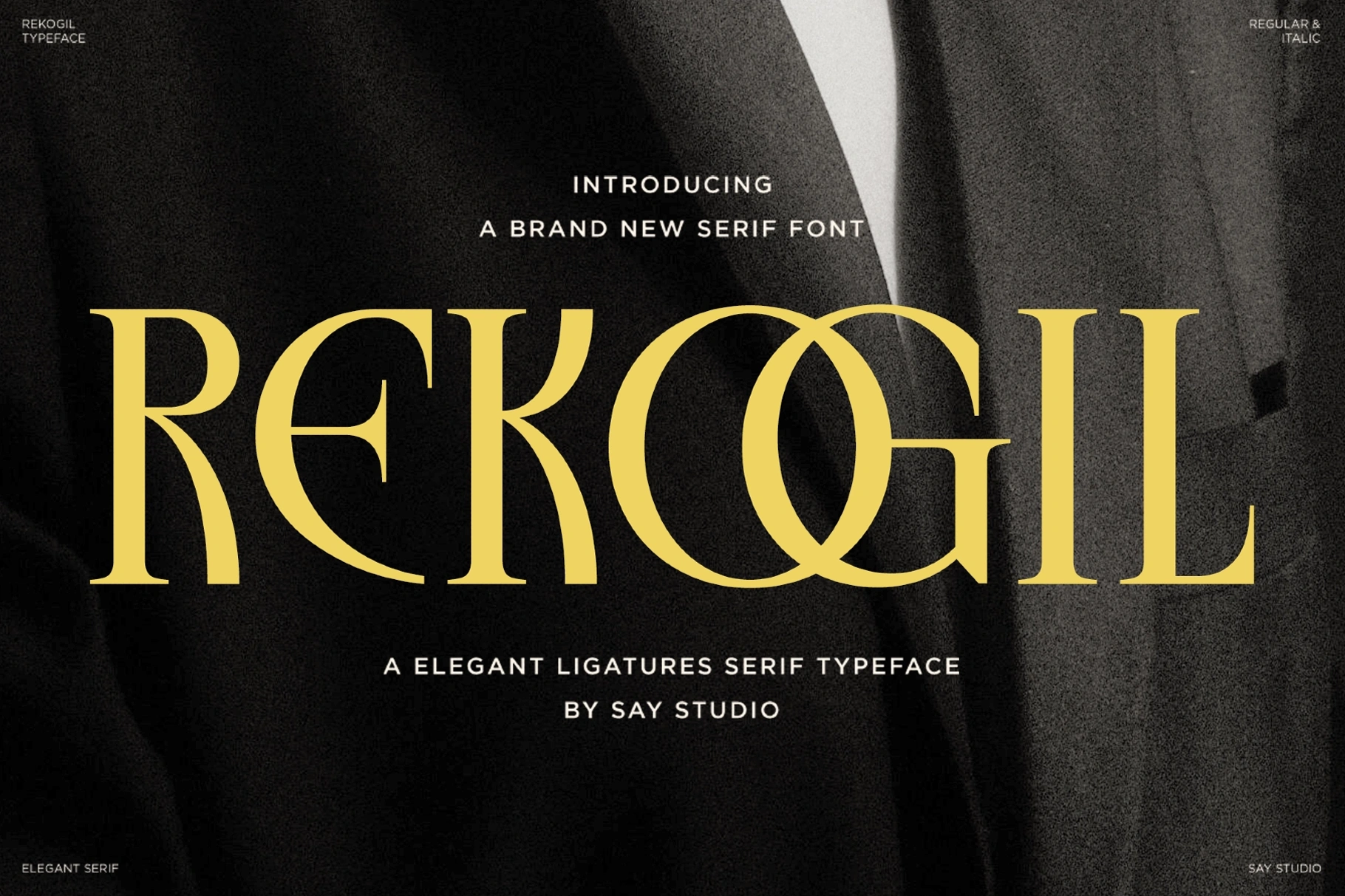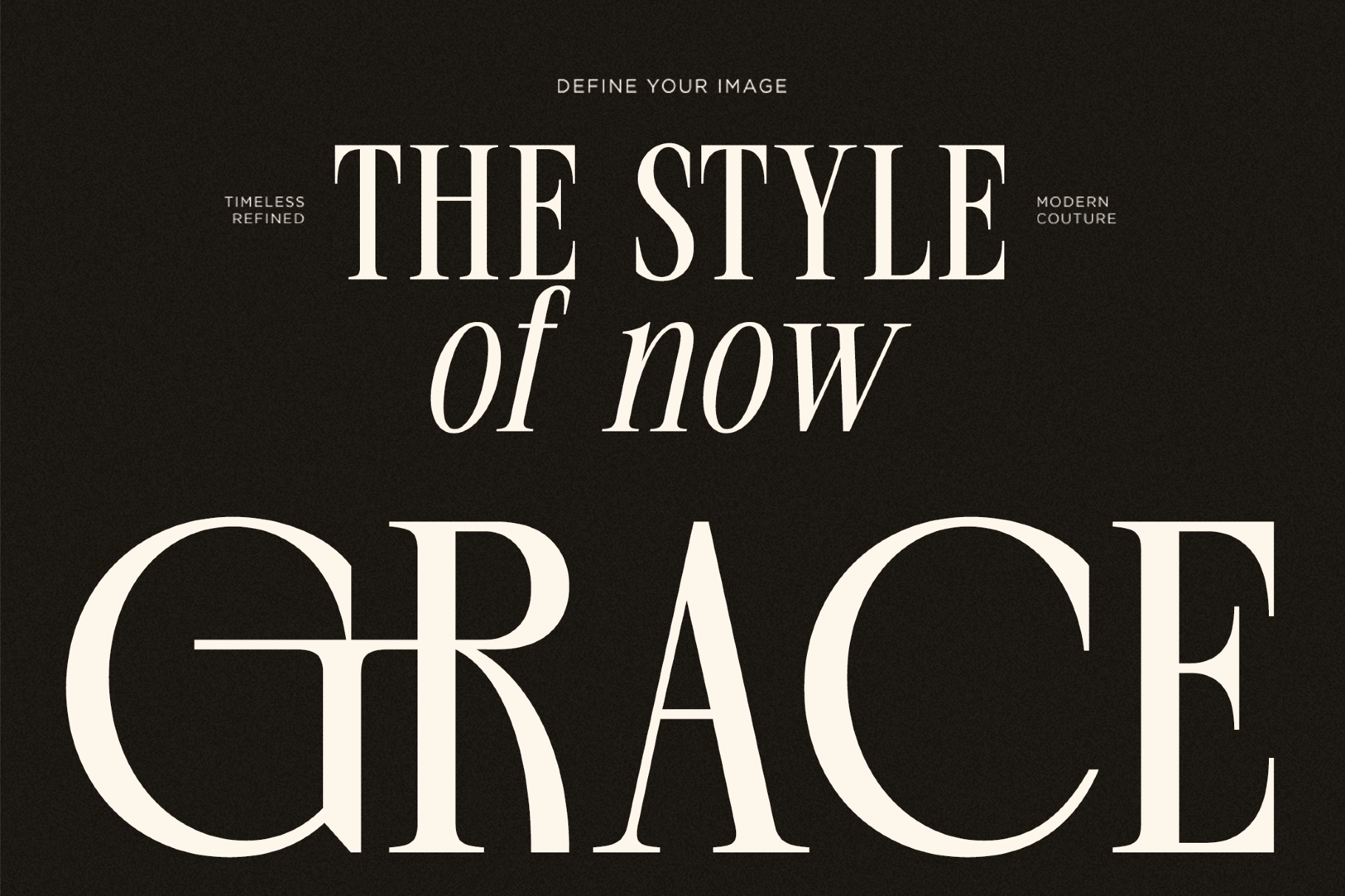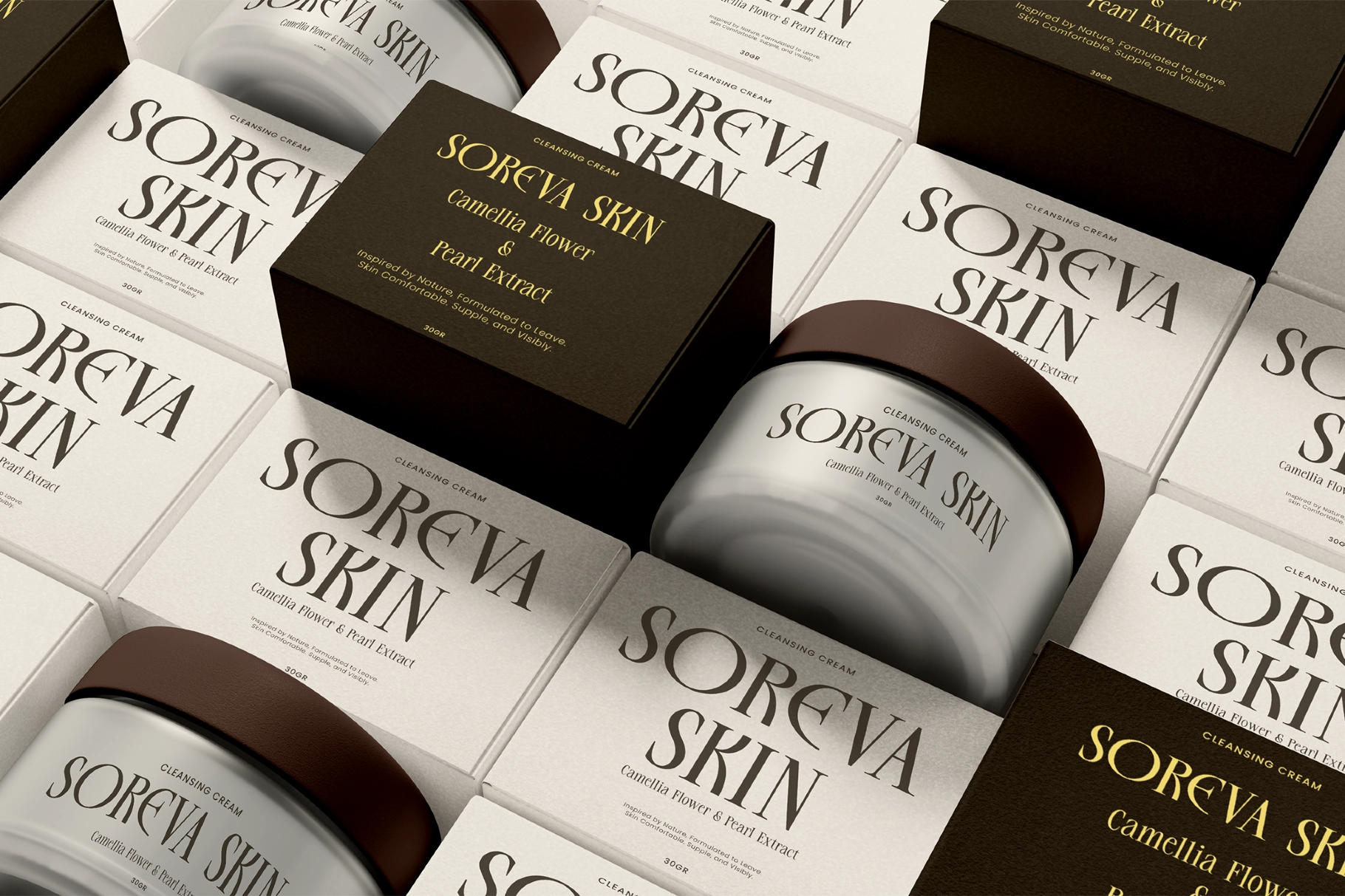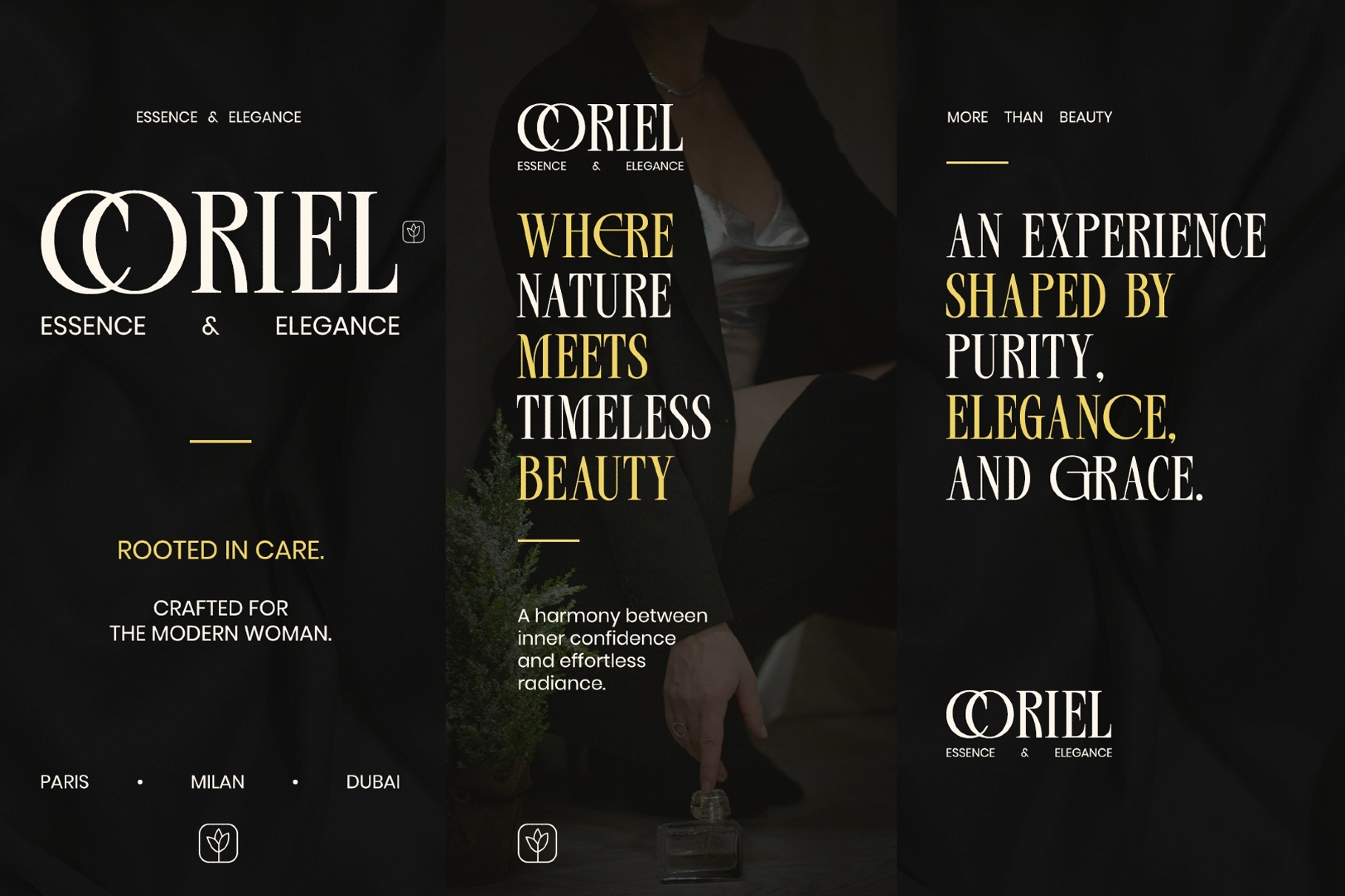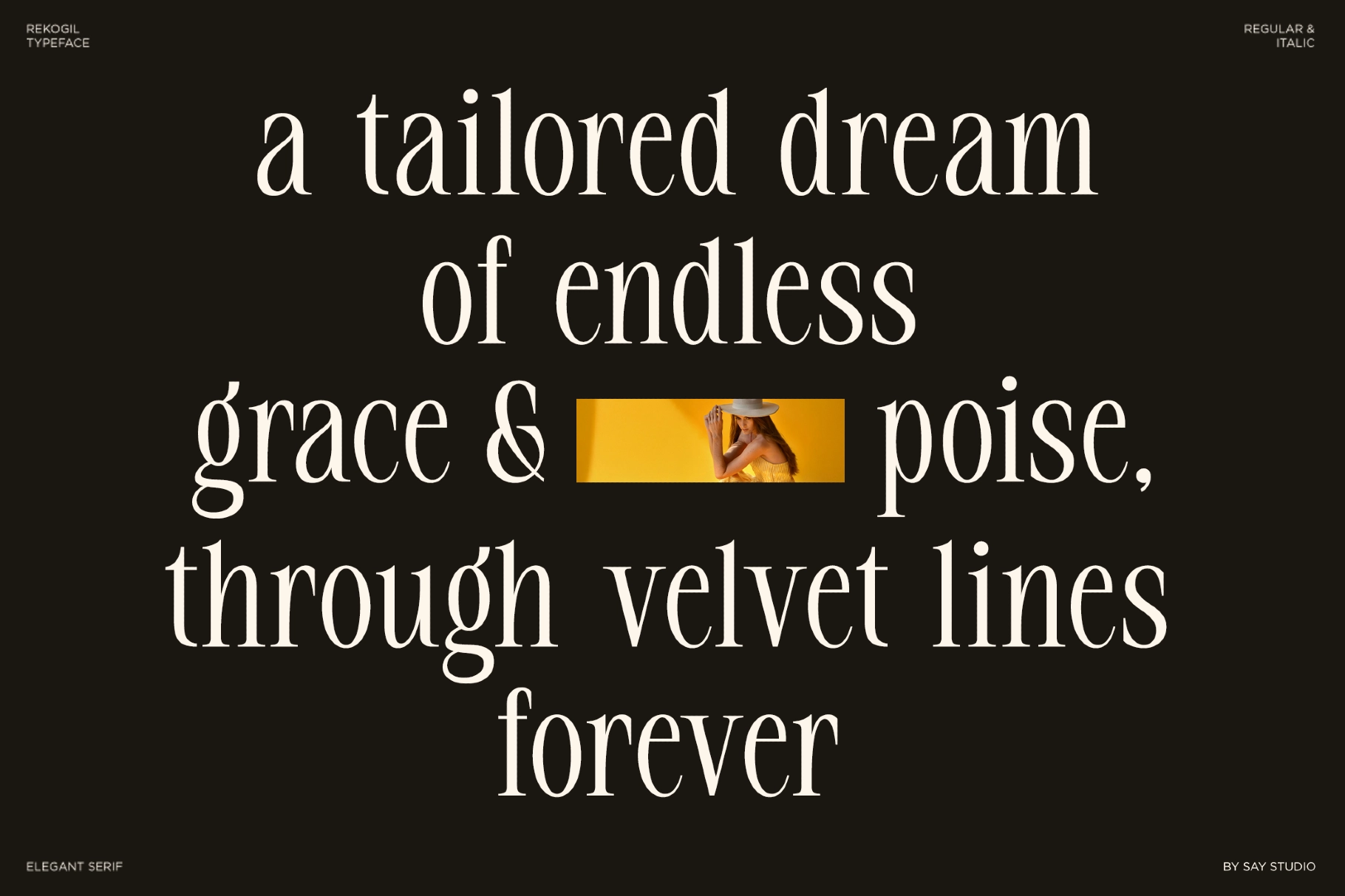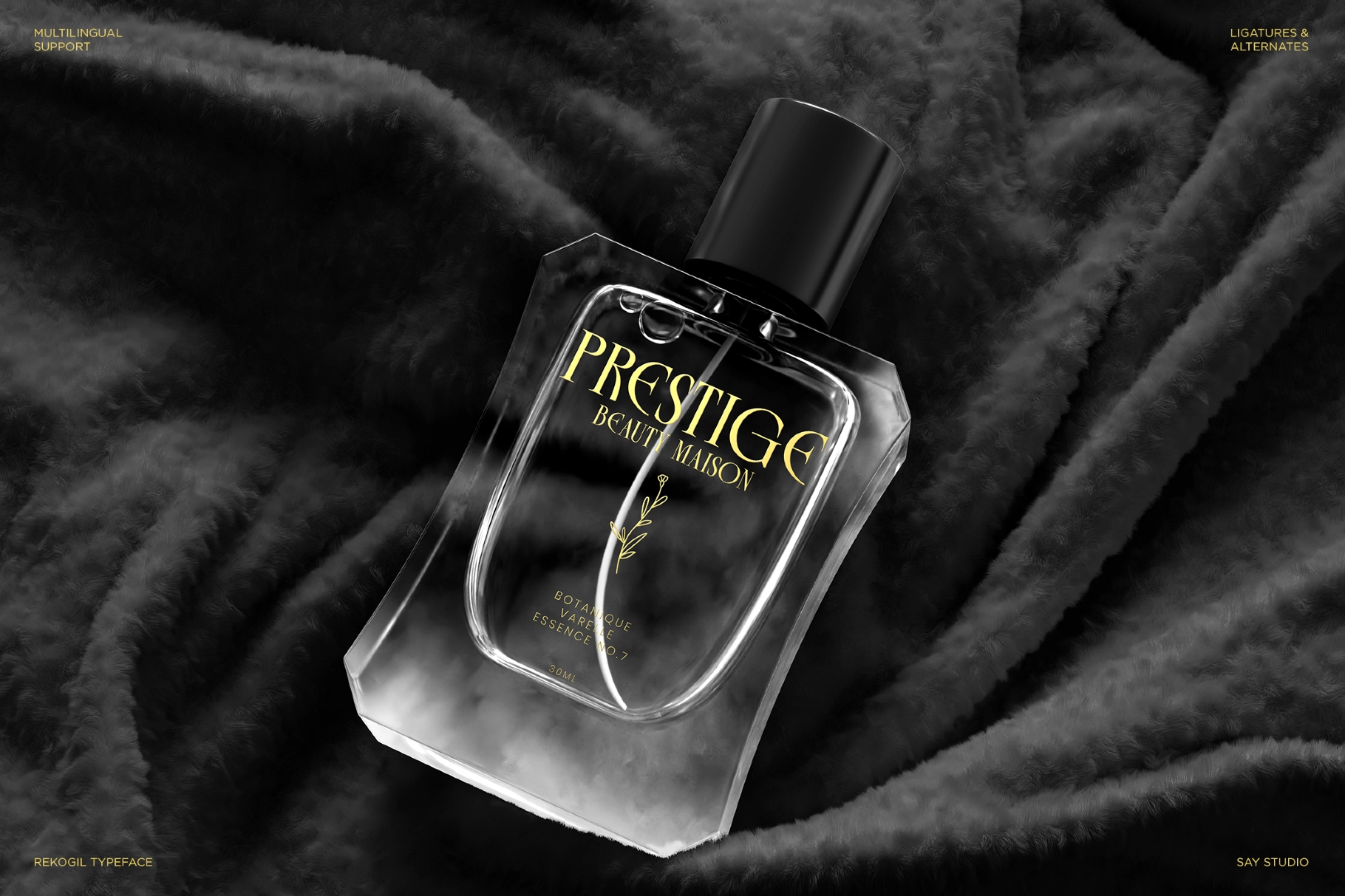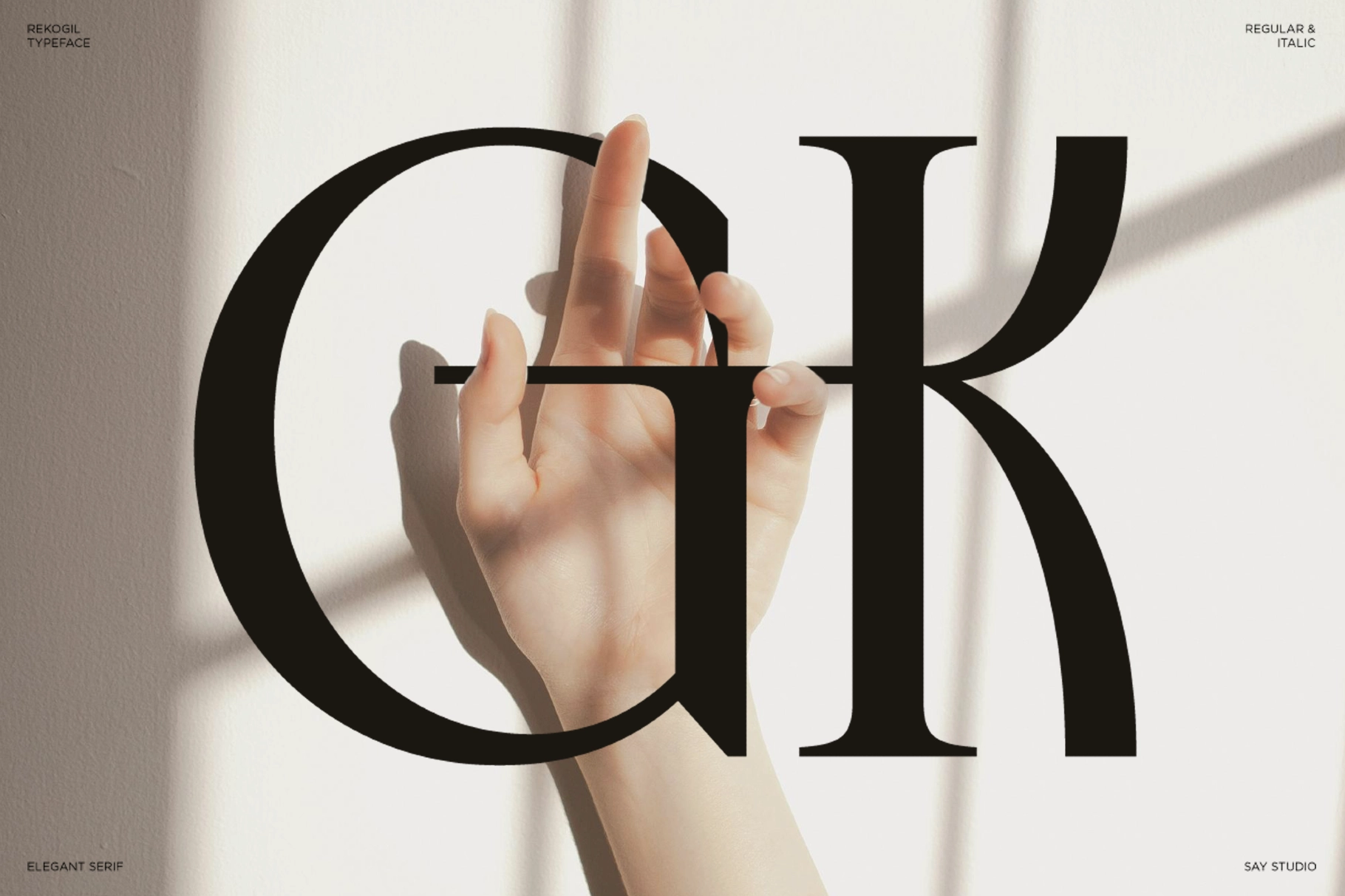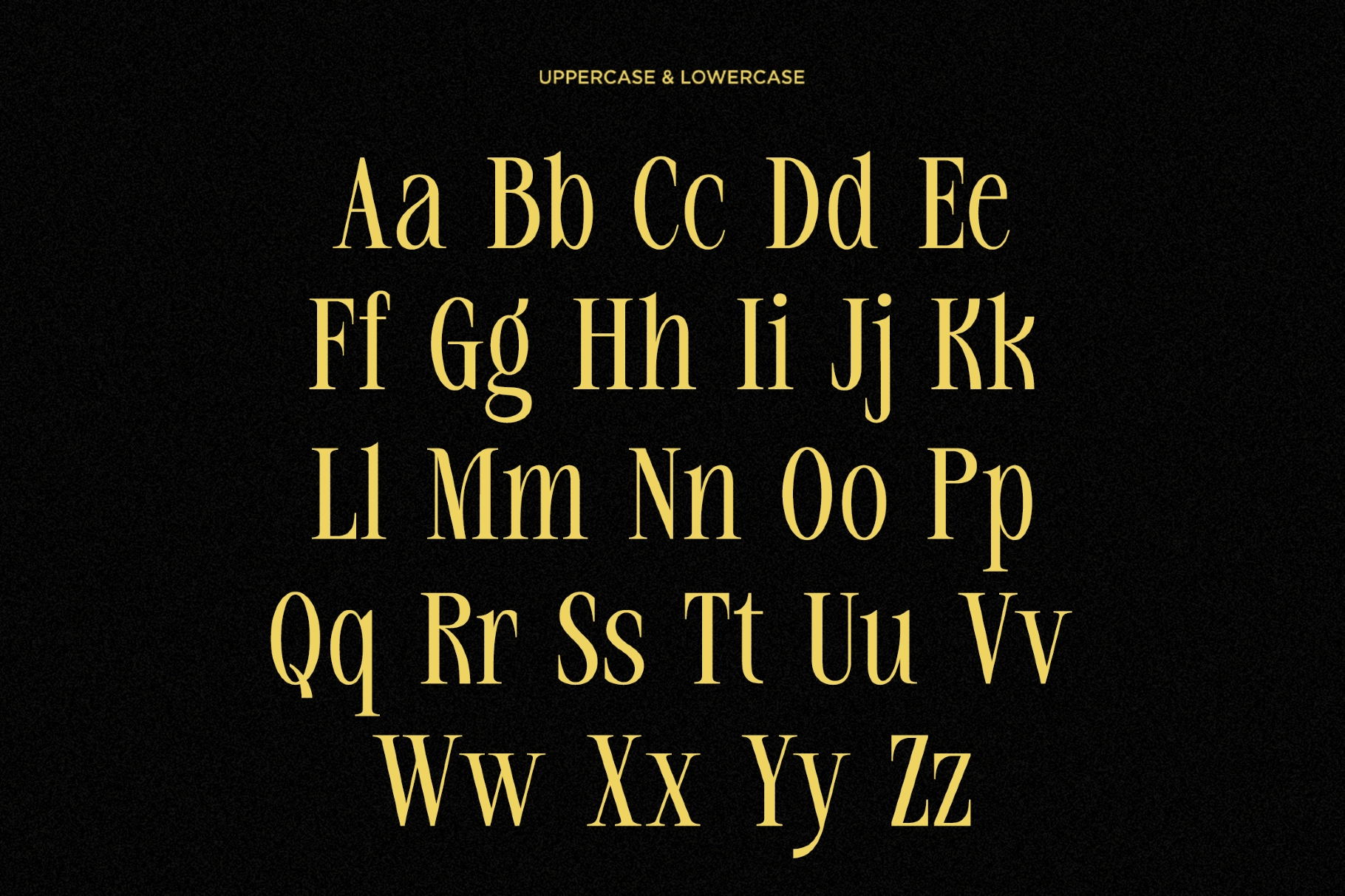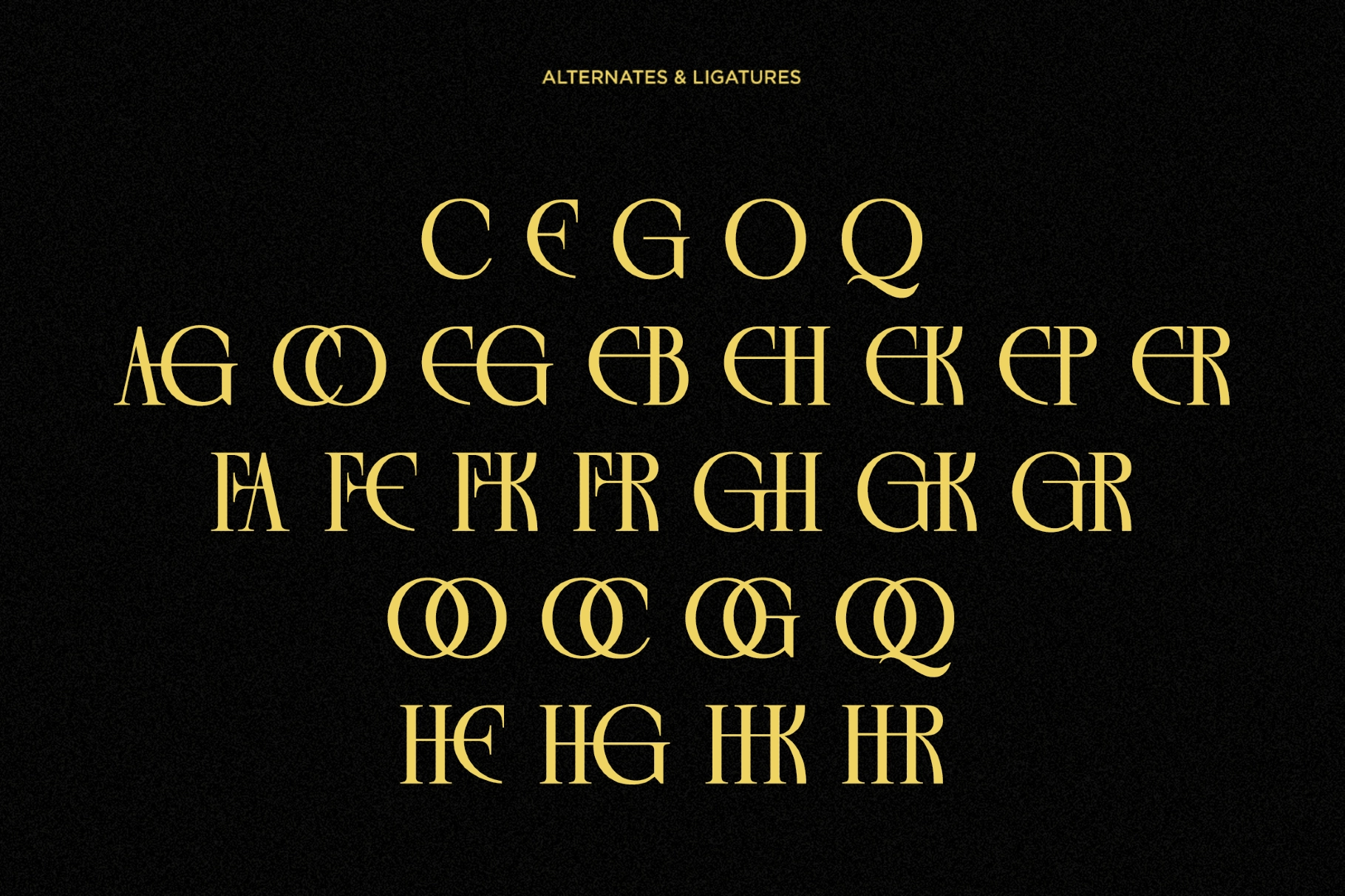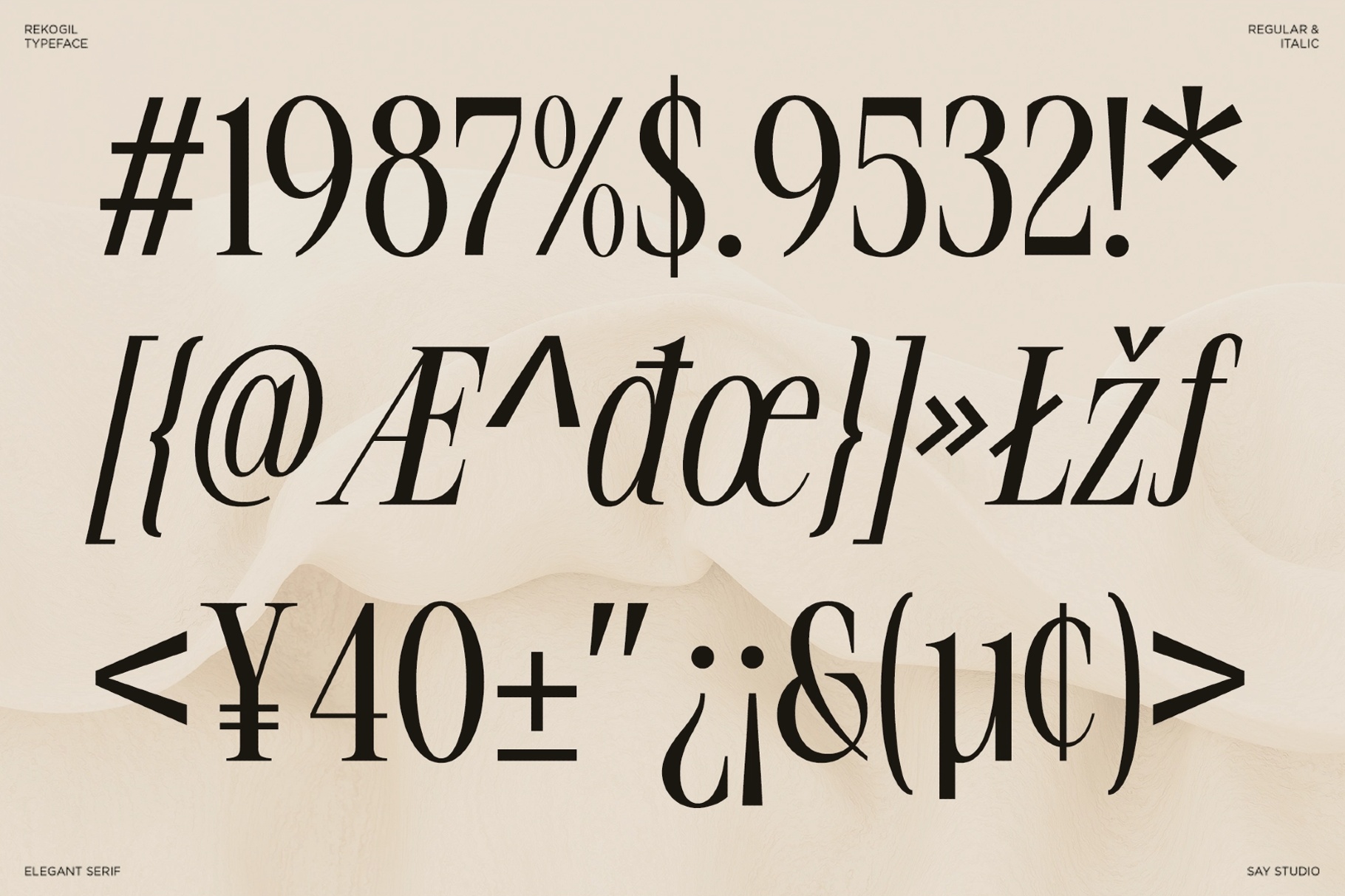
Rekogil - Luxury Ligature Serif Font
This elegant serif typeface has tall proportions, high-contrast strokes, and refined curves that bring a polished luxury look to every headline. Its distinctive ligatures and alternate characters add a custom logo quality, making the font ideal for premium branding , editorial layouts, and beauty-led design.
Use Rekogil for luxury logos, perfume packaging, cosmetic labels, fashion editorials, jewelry branding, wedding stationery, boutique identities, magazine covers, event invitations, skincare campaigns, social media graphics, brand presentations, and more. It is especially strong for names, monograms, and short statements where the ligatures can turn simple typography into a signature mark.
• 2 Styles: Regular & Italic
• Stylistic ligatures
• Alternate characters